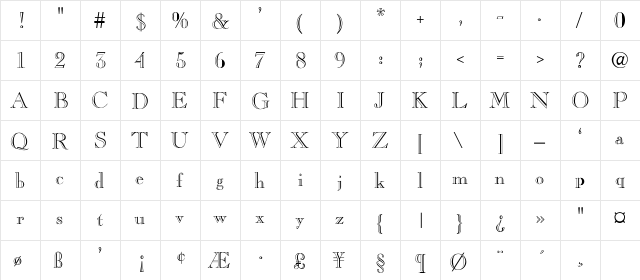
Carlson Open Face Regular
Design Context for Carlson Open Face Typeface
Carlson Open Face takes a measured approach to typography — its balanced proportions and neutral character make it a reliable workhorse for both digital and print work.